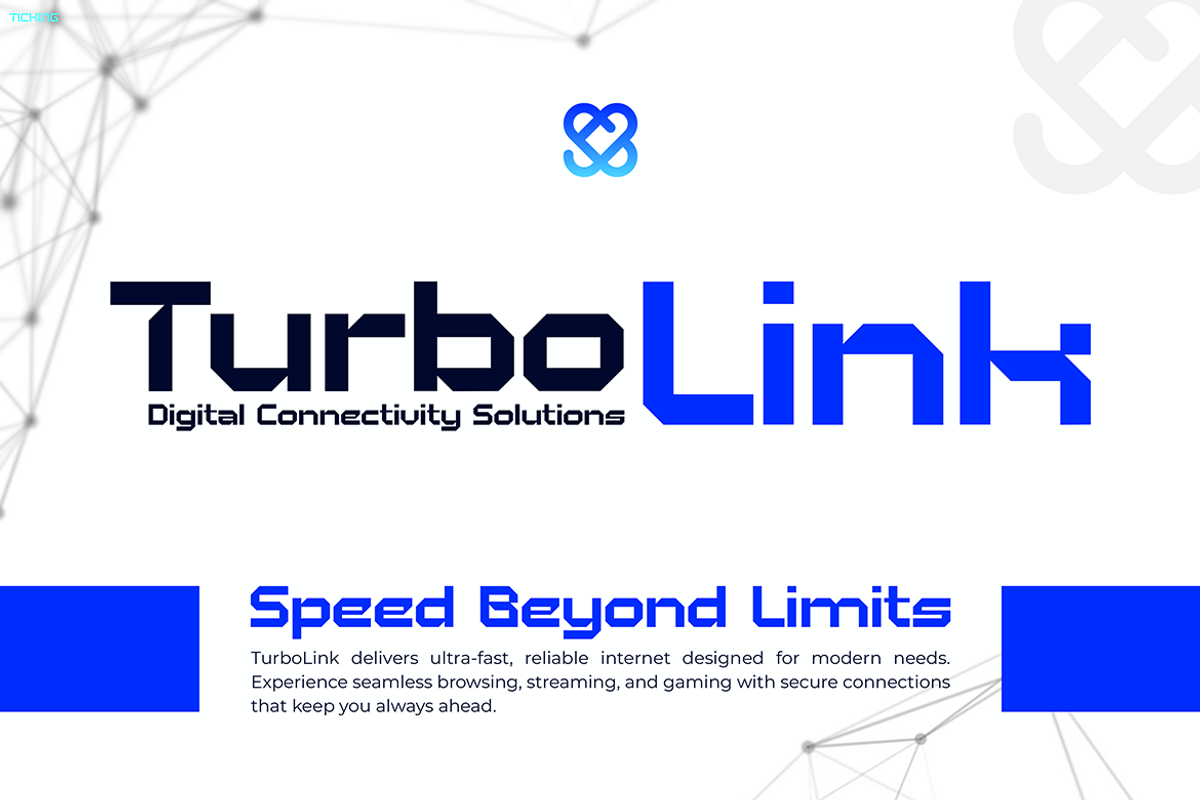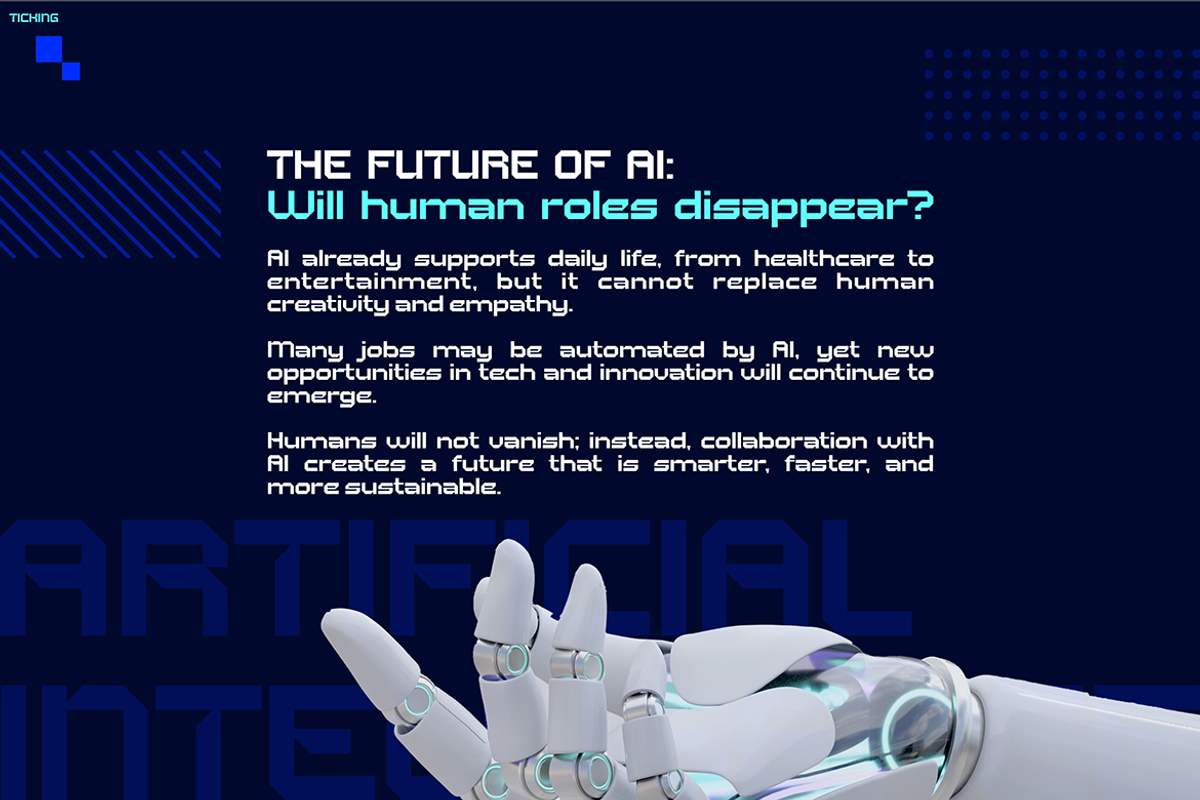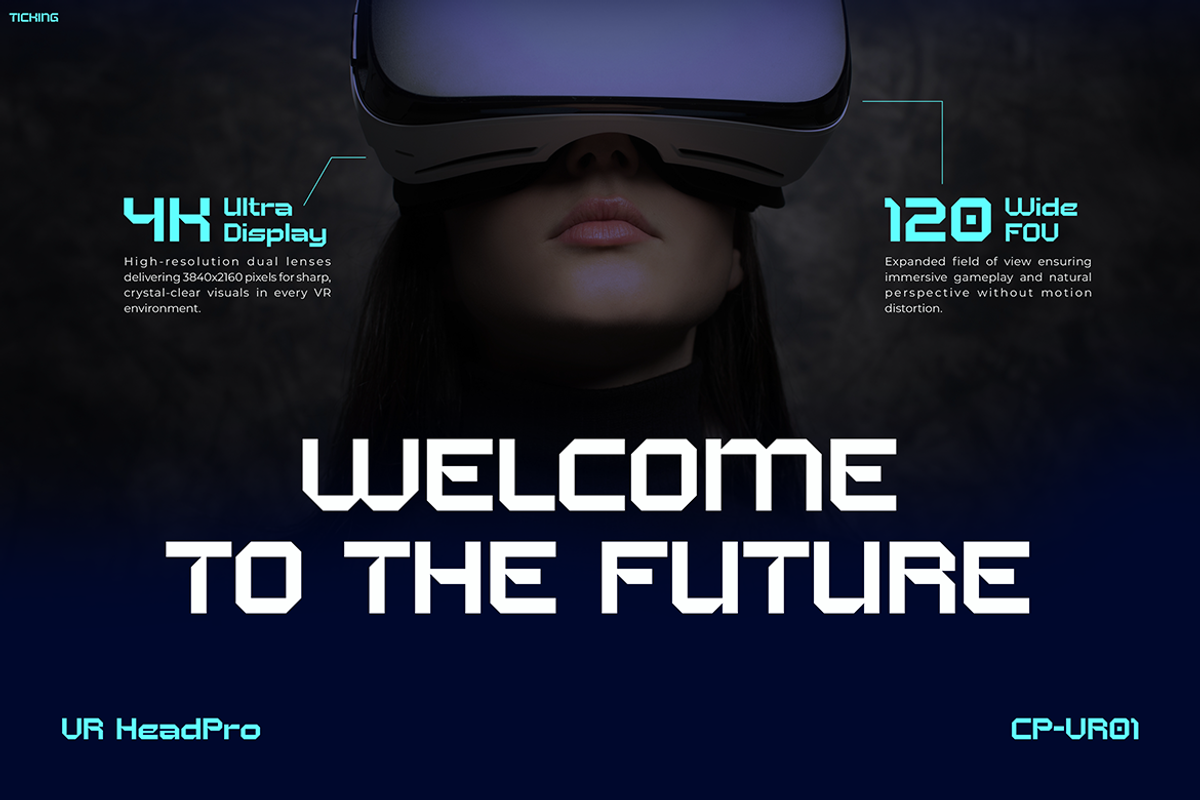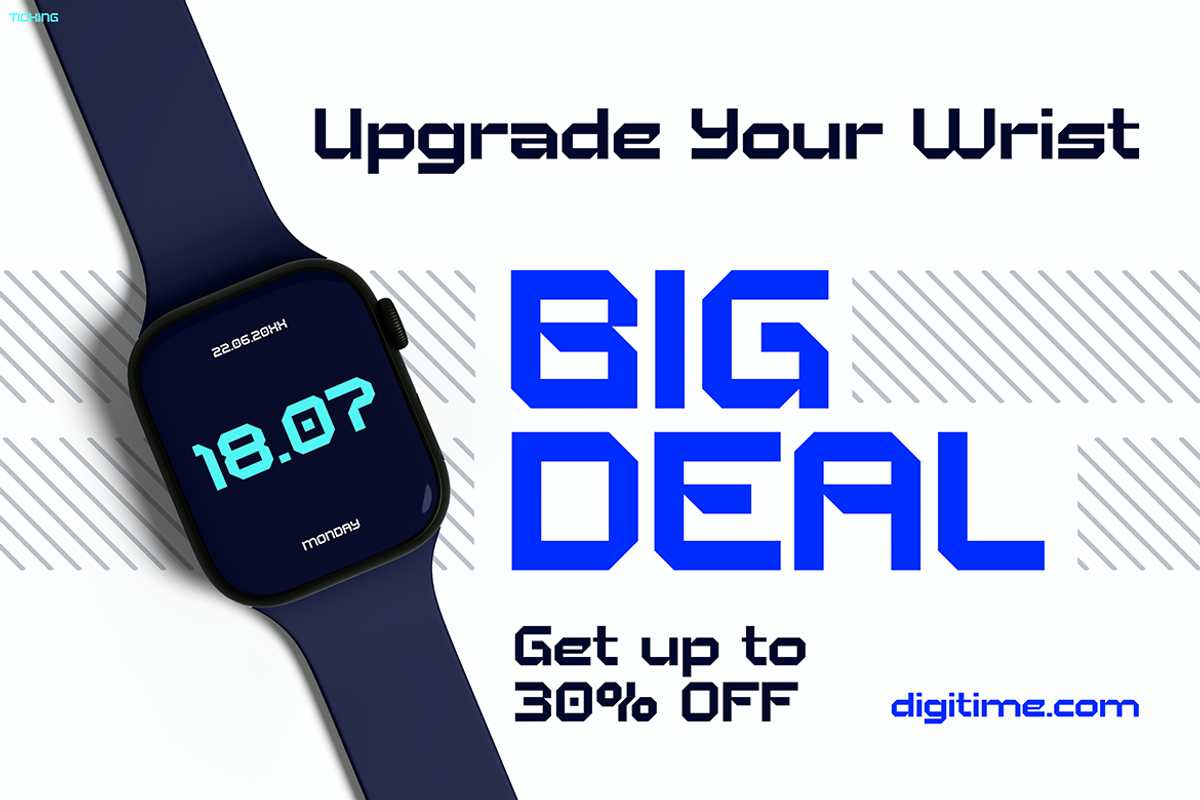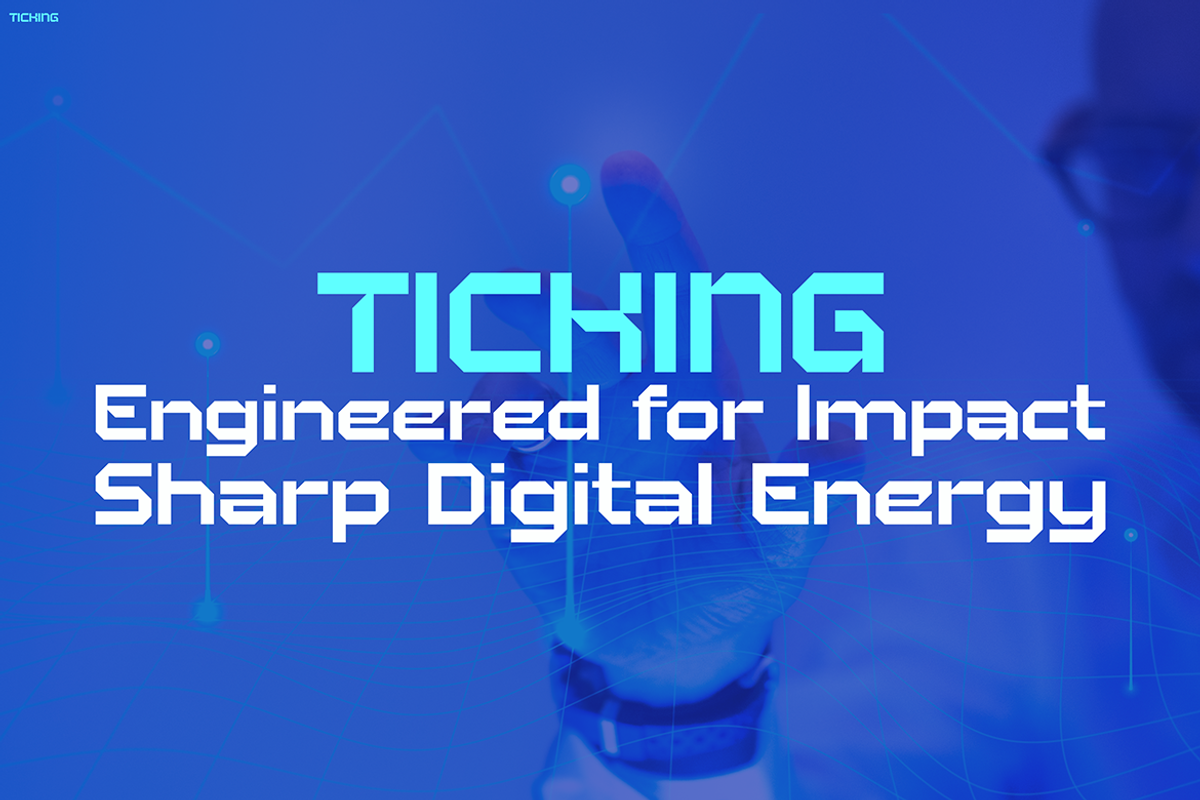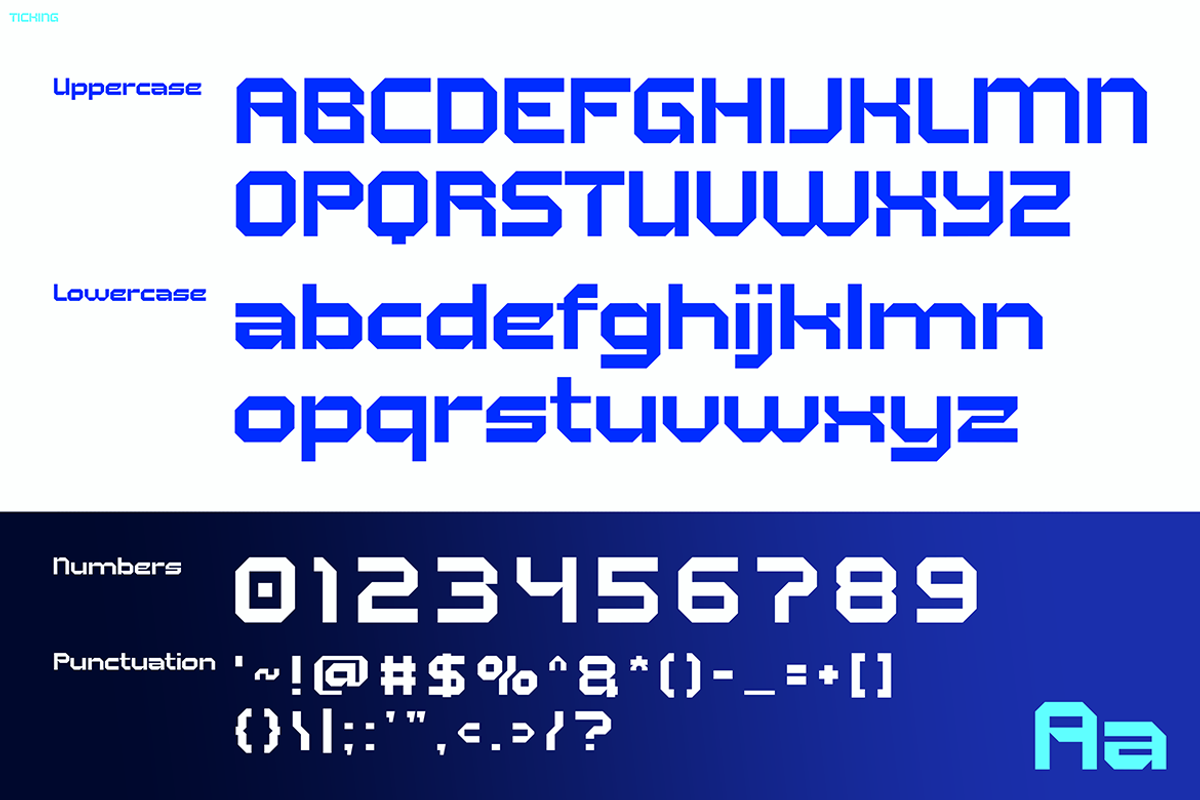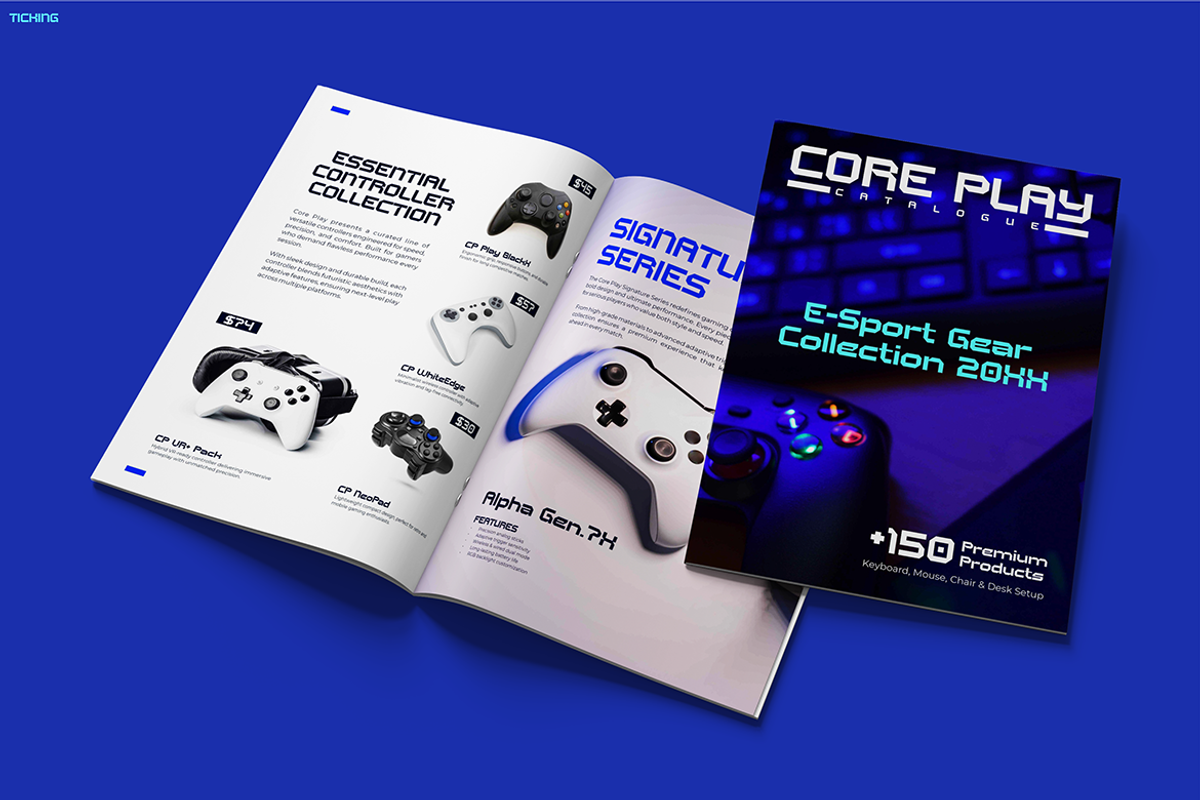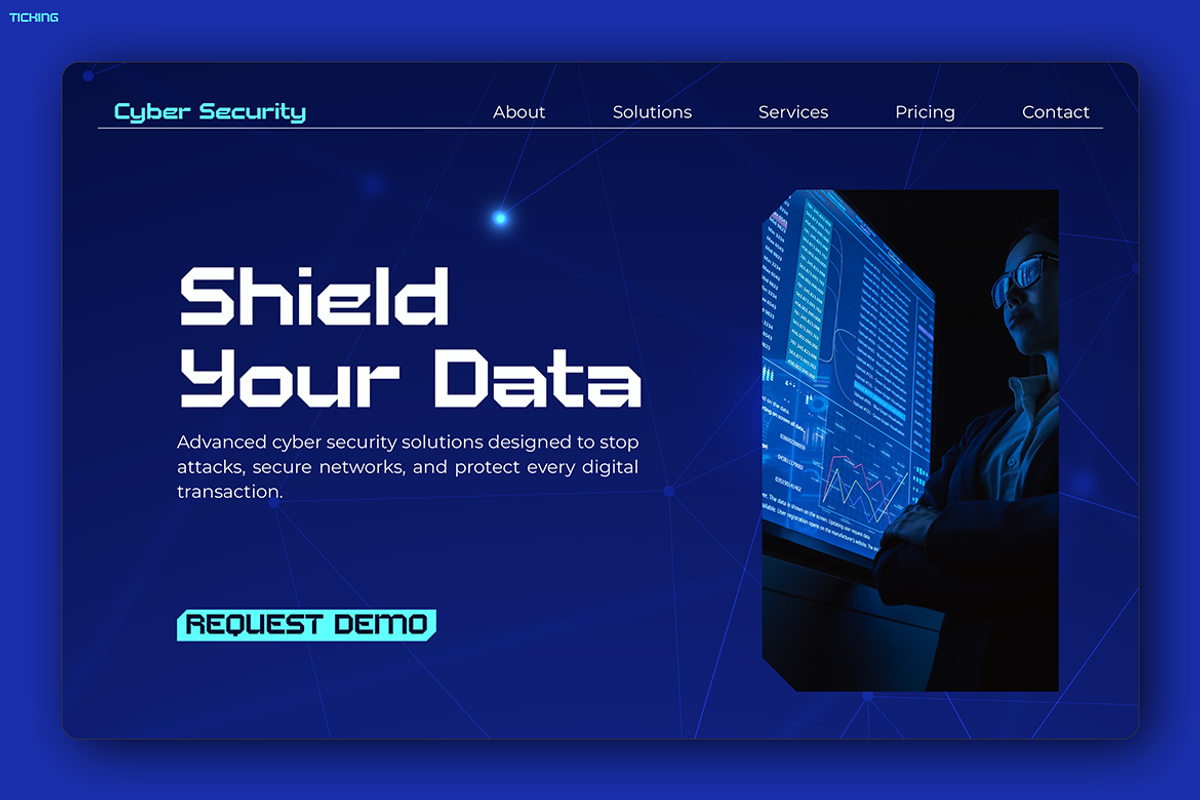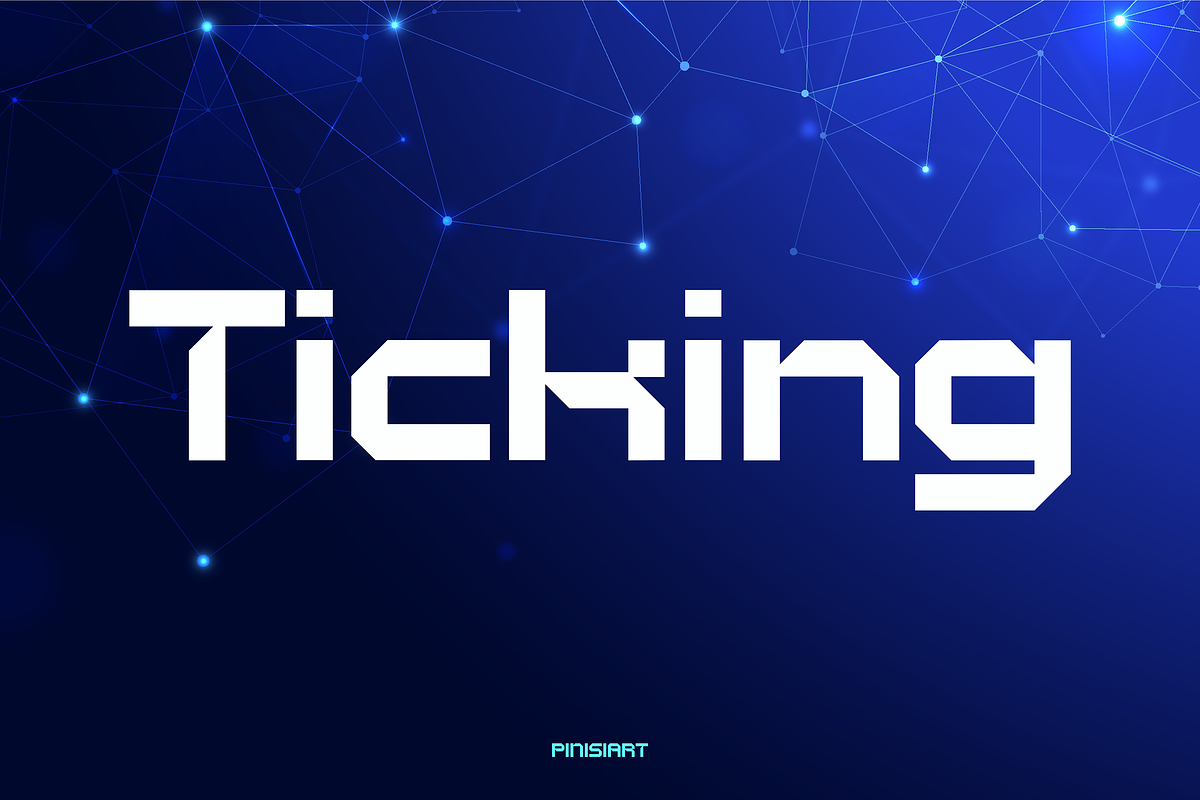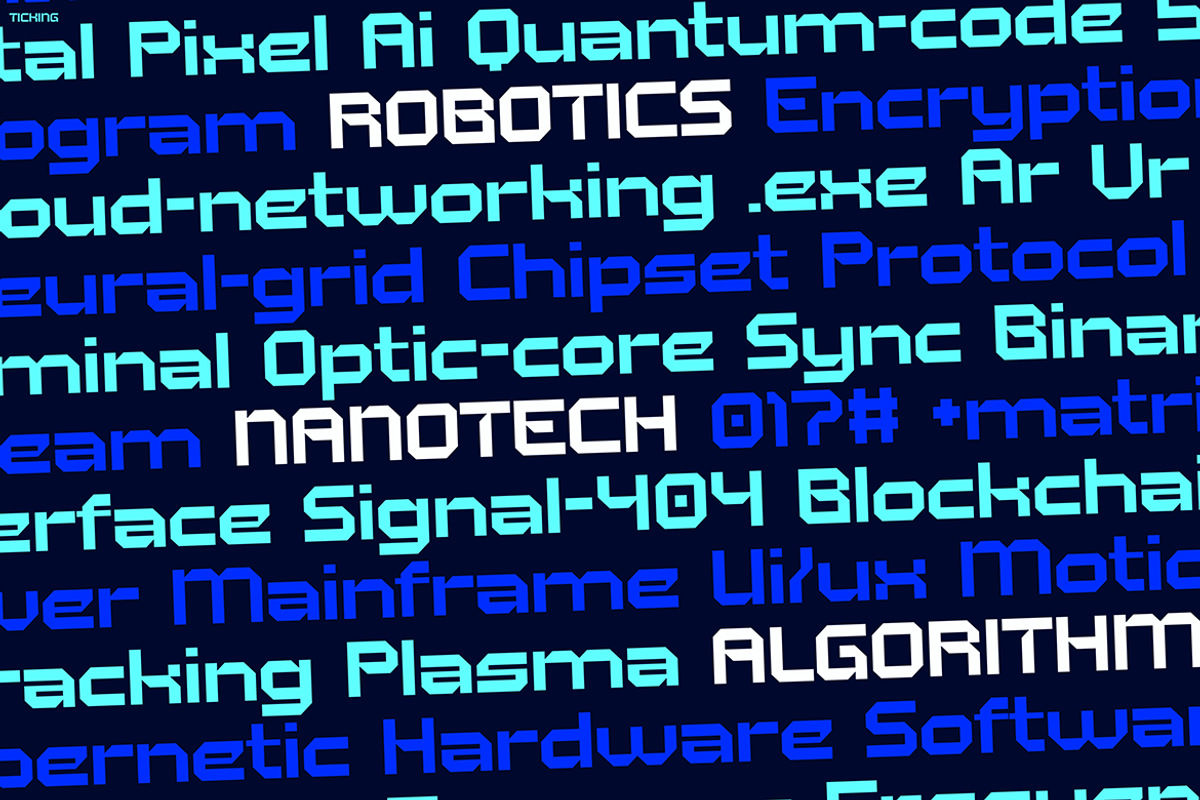
Ticking
Futuristic Font Ticking – Bold Aesthetic for the Digital Era
Futuristic Font Ticking is more than just a typeface; it is a vision of tomorrow’s design language. With its sharp geometry, sleek edges, and modern digital vibe, this font creates a bold impact that feels futuristic yet approachable. Moreover, its clean structure and balanced proportions make it versatile across both creative and professional projects. As a result, your designs will not only stand out visually but also communicate innovation and forward-thinking style. While many fonts simply decorate, Ticking actively defines the mood of your project with precision and energy.